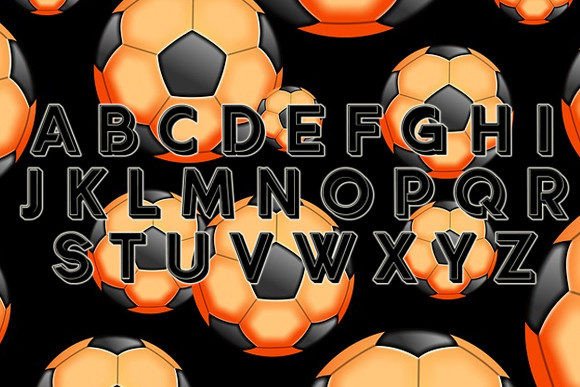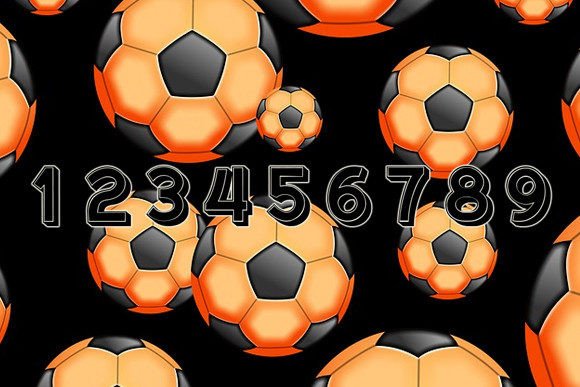
Introducing Giocatore Font: Elevate Your Designs with a Stunning 3D Sans Serif Typeface
Are you tired of using the same old fonts in your designs? Look no further! Giocatore Font is here to take your creative projects to the next level. This awesome 3D Sans Serif typeface is perfect for designers and crafters who want to add a touch of sophistication and modernity to their work. In this article, we’ll dive into the features and benefits of Giocatore Font, and explore how you can use it to create stunning designs that will leave a lasting impression.
What is Giocatore Font?
Giocatore Font is a unique and versatile 3D Sans Serif typeface that is designed to make your designs stand out. Its sleek and modern design makes it perfect for a wide range of applications, from posters and flyers to logos and branding materials. With its clean lines and bold structure, Giocatore Font is sure to grab attention and leave a lasting impression.
Key Features of Giocatore Font
- 3D Effect: Giocatore Font features a stunning 3D effect that adds depth and dimension to your designs.
- Sans Serif Design: The font’s sans serif design makes it clean and modern, perfect for contemporary designs.
- Highly Versatile: Giocatore Font can be used for a wide range of applications, from posters and flyers to logos and branding materials.
- Easily Customizable: The font is easily customizable, allowing you to adjust the size, color, and style to fit your design needs.
Benefits of Using Giocatore Font
So why should you choose Giocatore Font for your designs? Here are just a few benefits of using this amazing typeface:
- Adds Visual Interest: The 3D effect of Giocatore Font adds visual interest to your designs, making them more engaging and attention-grabbing.
- Enhances Professionalism: The font’s sleek and modern design enhances the professionalism of your designs, making them perfect for business and marketing materials.
- Versatile and Flexible: Giocatore Font can be used for a wide range of applications, making it a versatile and flexible design solution.
How to Use Giocatore Font in Your Designs
Using Giocatore Font in your designs is easy! Here are a few tips to get you started:
- Pair it with Other Fonts: Giocatore Font pairs well with other sans serif fonts, creating a clean and modern look.
- Experiment with Colors: Try experimenting with different colors and gradients to add depth and interest to your designs.
- Use it for Headlines and Titles: Giocatore Font is perfect for headlines and titles, adding a touch of sophistication and elegance to your designs.
Design Ideas Using Giocatore Font
- Posters and Flyers: Use Giocatore Font to create eye-catching posters and flyers that will grab attention.
- Logos and Branding Materials: The font’s sleek and modern design makes it perfect for logos and branding materials.
- Social Media Graphics: Use Giocatore Font to create stunning social media graphics that will stand out in a crowded feed.